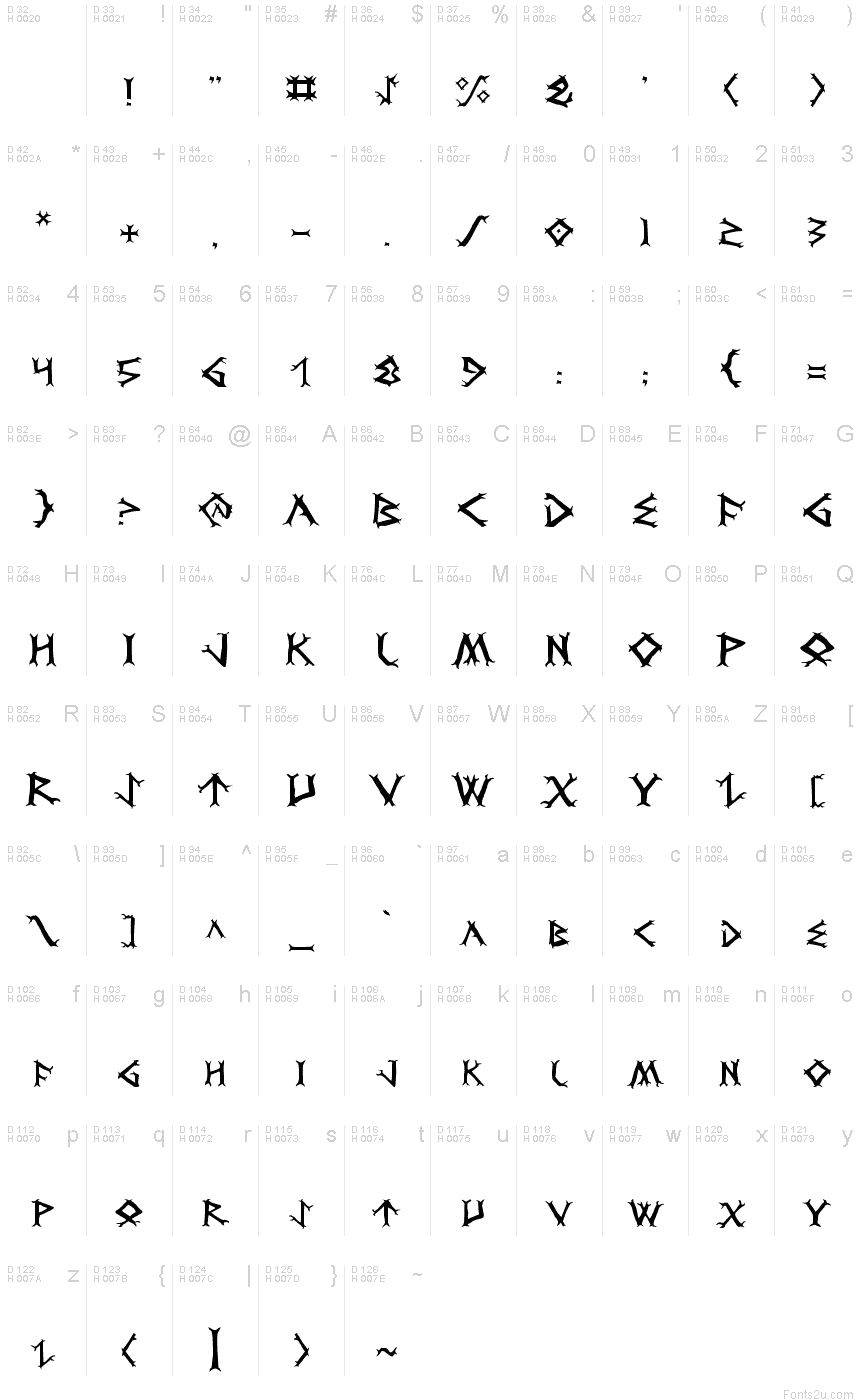
Dragon Order
Dragon Order font by Iconian Fonts is a free decorative scary display typeface that looks carved from jagged bone and claw. Its sharp, splintered strokes and angular curves feel like ancient runes scratched into stone, giving titles a dark fantasy edge with a hint of occult drama. The letters are tightly sculpted yet legible, so you get that chaotic, spiky energy without losing readability at larger sizes.
Using Dragon Order, you can instantly push horror posters, fantasy book covers, tabletop RPG titles, game logos, Halloween flyers, streaming overlays, and band merch into more menacing territory. This free font thrives as a big, commanding headline, then pairs well with a clean, neutral sans serif for body text to keep layouts balanced. Set it large, add some texture or glow, and Dragon Order becomes the focal point of any eerie, mythic design.